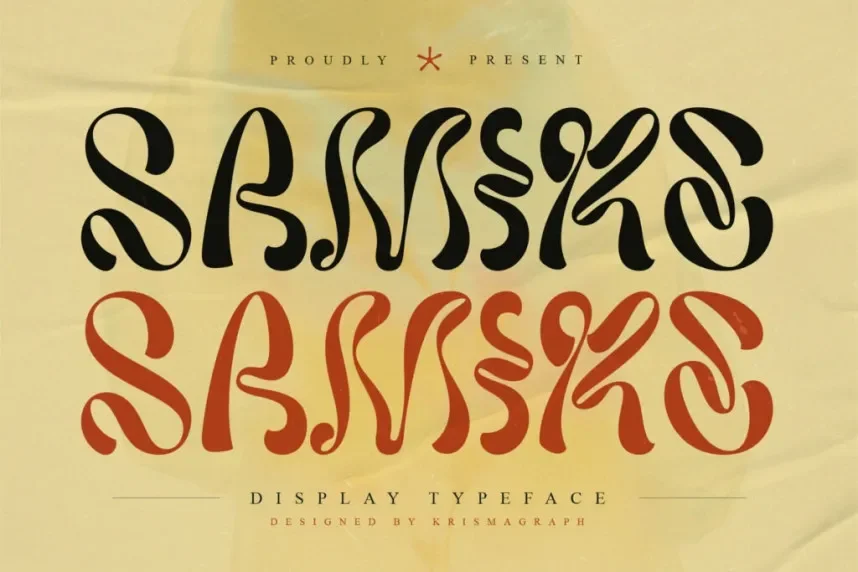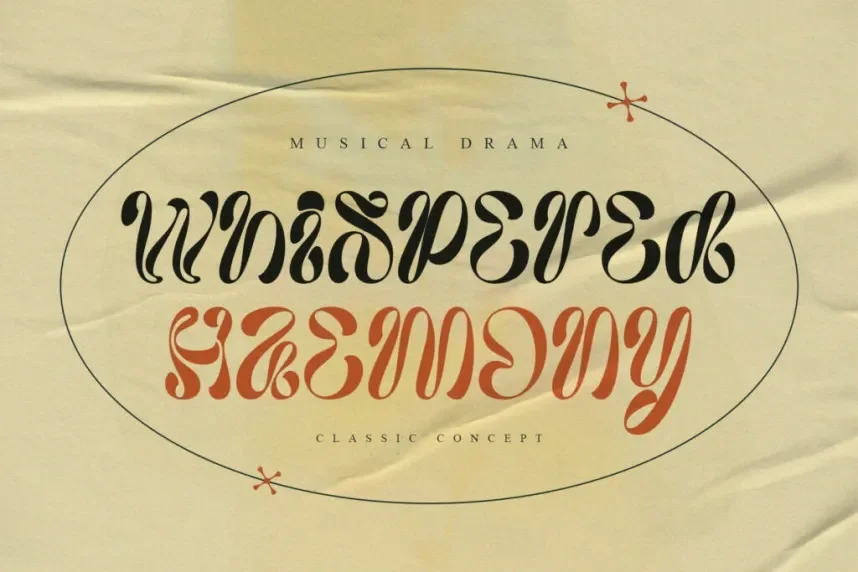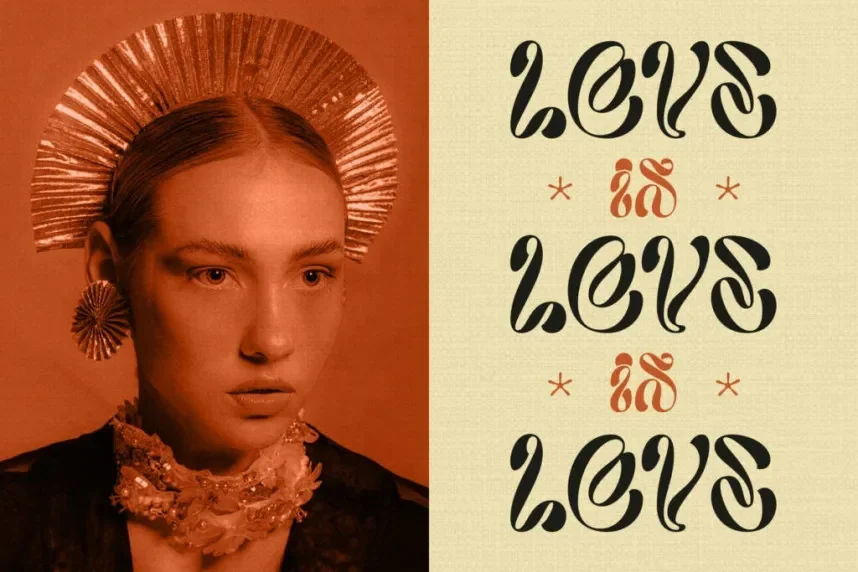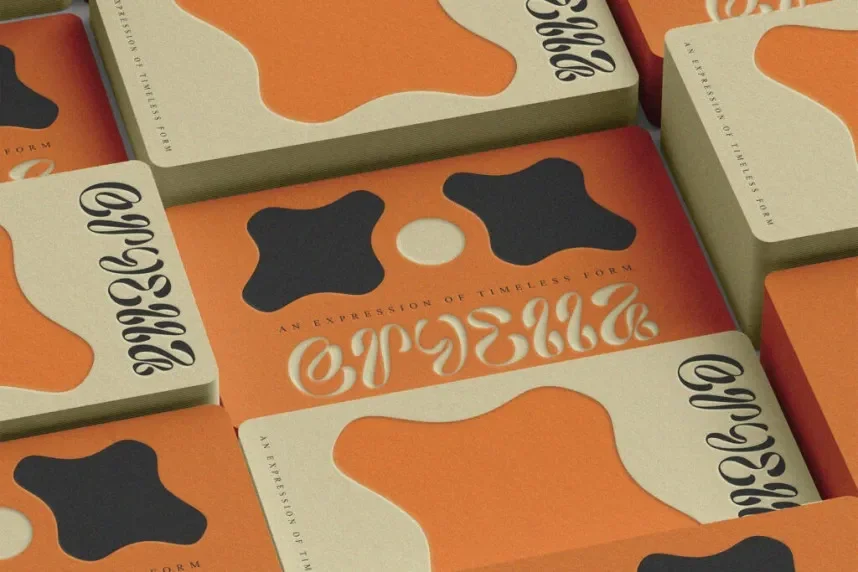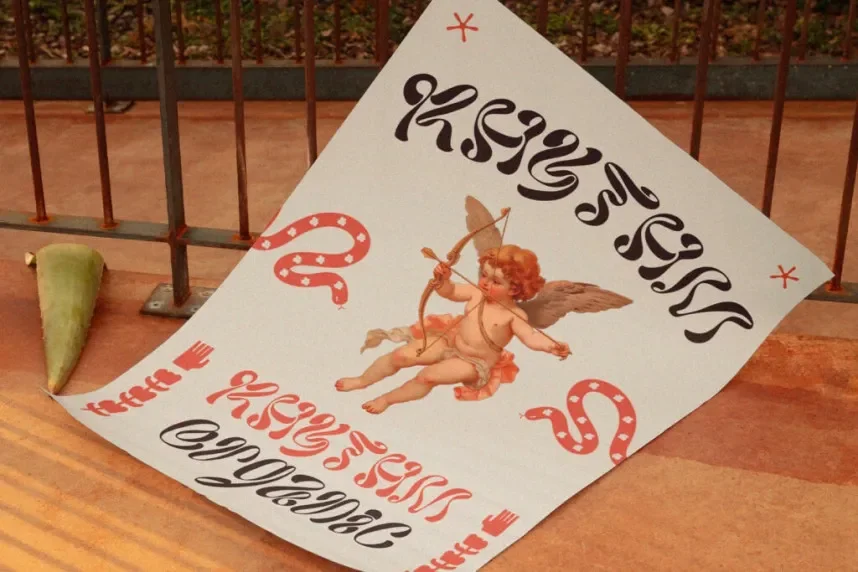
Samire Display Font is a modern, bold display typeface with unique geometric shapes. The font’s sharp lines and wide proportions make it stand out, making it ideal for attention-grabbing headlines, branding, and promotional materials.